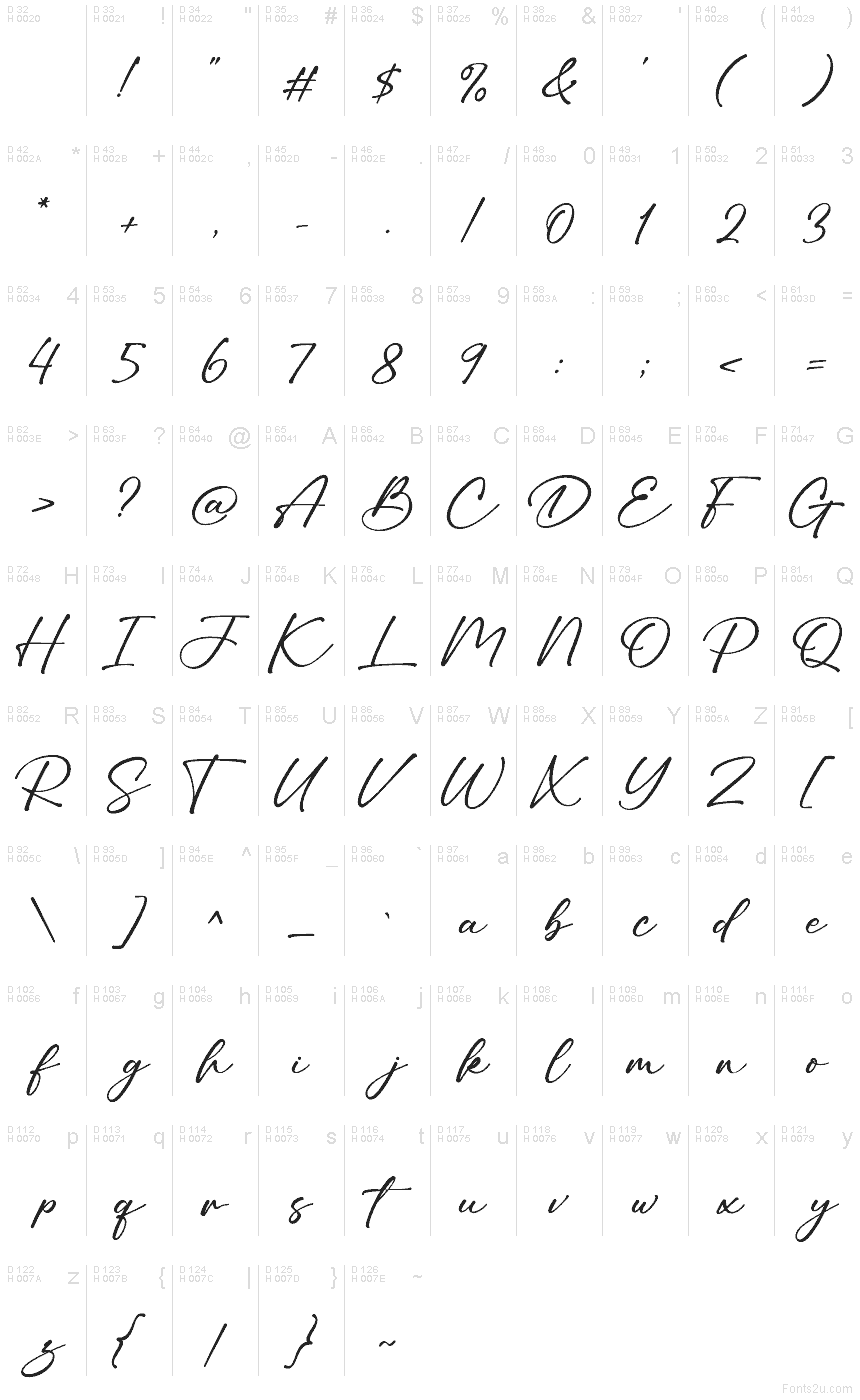
Hourglass Of Shine
Hourglass of Shine font by Namara Creative is a free light handwritten font. Its monoline strokes glide with an easy slant, forming airy loops and elongated ascenders that feel like ink pulled across smooth paper. The spacing breathes just enough to keep words legible while preserving that effortless, signature flow—elegant without tipping into fussiness.
Using Hourglass of Shine, your type takes on a warm, personal cadence that shines on wedding suites, beauty or boutique logos, product packaging, quote graphics, social posts, and thank‑you cards. This free font holds up well at larger sizes where its delicate curves can stretch and sparkle; add a touch of tracking for small captions. Pair with a crisp geometric sans for contrast and let the script lead as the headline.